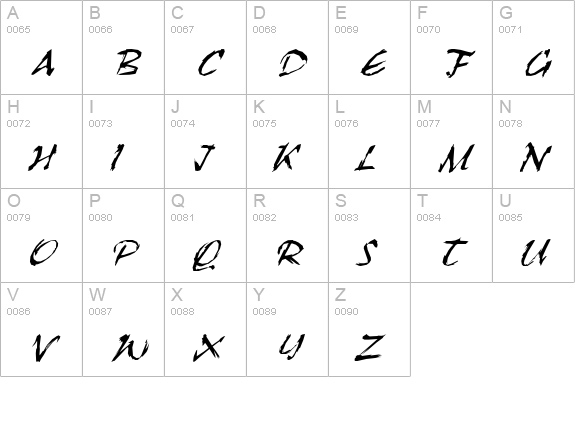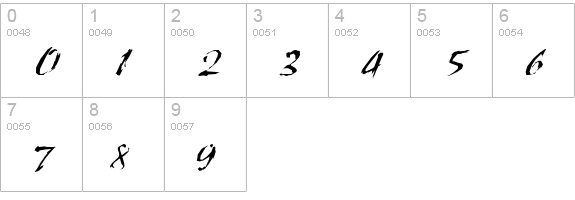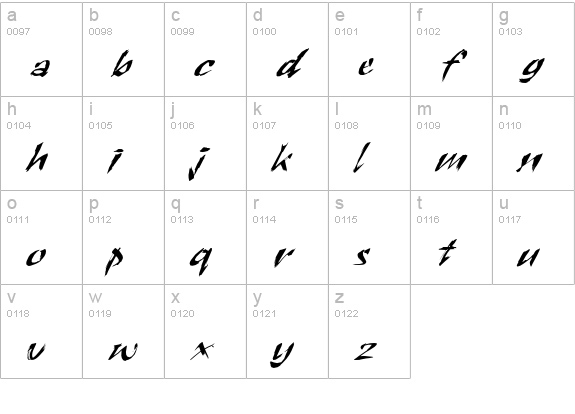
Sctratch Italic is a distinctive, italic variant in the Sctratch typeface family \xE2\x80\x94 well suited to design and typography projects.
Introducing Scratch Italic font, a bold and dynamic typeface that exudes an effortlessly cool and edgy vibe. This unique font is perfect for adding a touch of rebelliousness and artistic flair to any design project. With its slanted and slightly scratched appearance, Scratch Italic font captures attention and demands to be noticed. Its distinctive and irregular letterforms make a bold statement, while still maintaining readability and legibility. Whether you're working on a poster, logo, branding, or any other creative endeavor, Scratch Italic font will add a touch of personality and individuality to your work. Its versatile nature allows it to perfectly complement a wide range of design styles, from modern and urban to vintage and retro. But the best part? Scratch Italic font is freely available to download at FontsMarket.com. Yes, you read that right – this captivating font can be yours at no cost! With just a few clicks, you can enhance your design projects with this eye-catching typeface, without breaking the bank. So why wait? Don't miss the opportunity to elevate your designs and grab the attention of your audience with Scratch Italic font. Download it for free at FontsMarket.com today and let your creativity run wild!